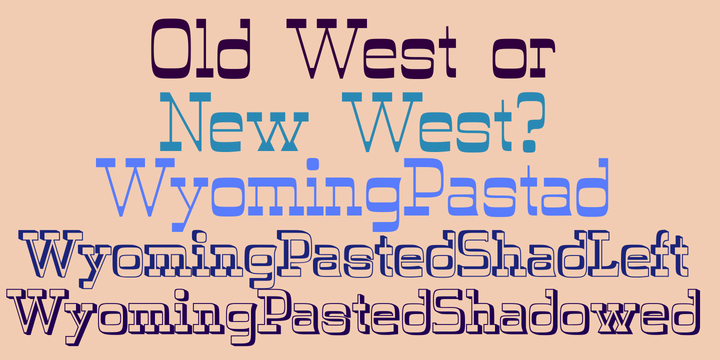
Wyoming Pastad is the simplest of the Wyoming series. The round letter shapes of Wyoming Spagetti have moved toward squareness. The overall effect is that Wyoming Pastad no longer looks much like an “Old West” face. Two shadowed versions of this face are included.